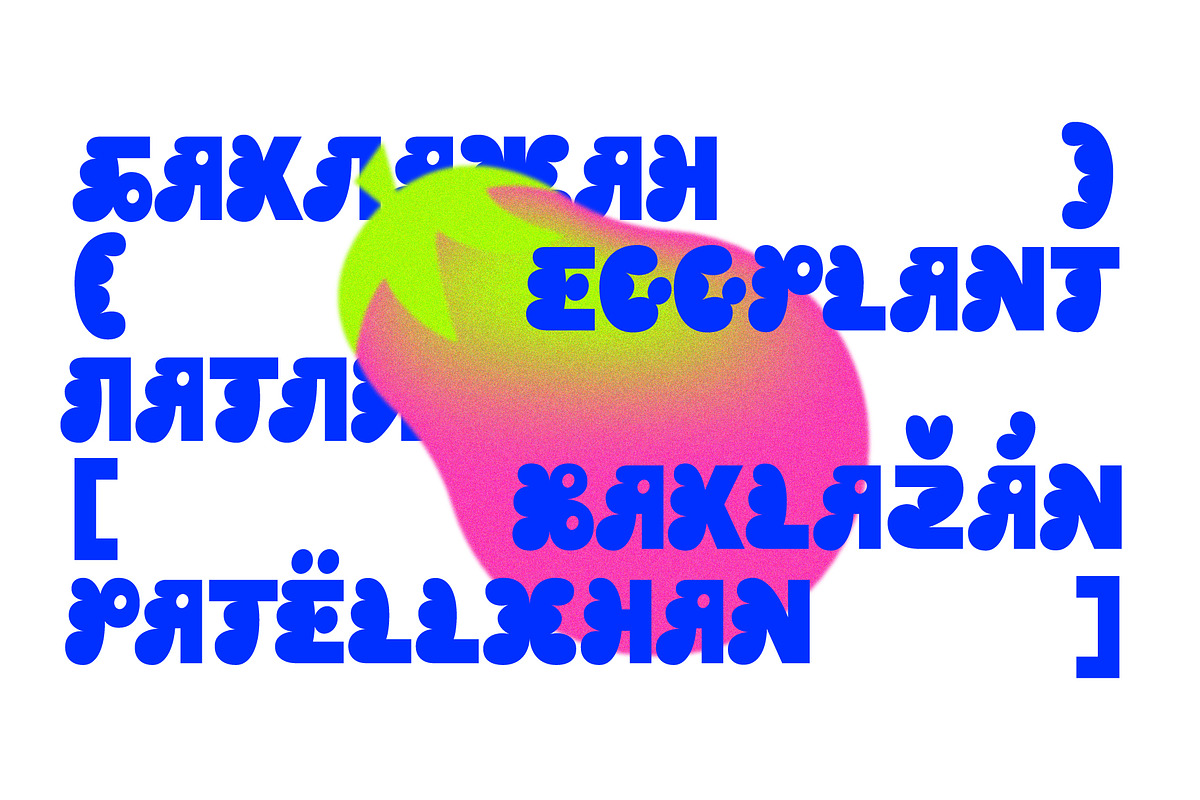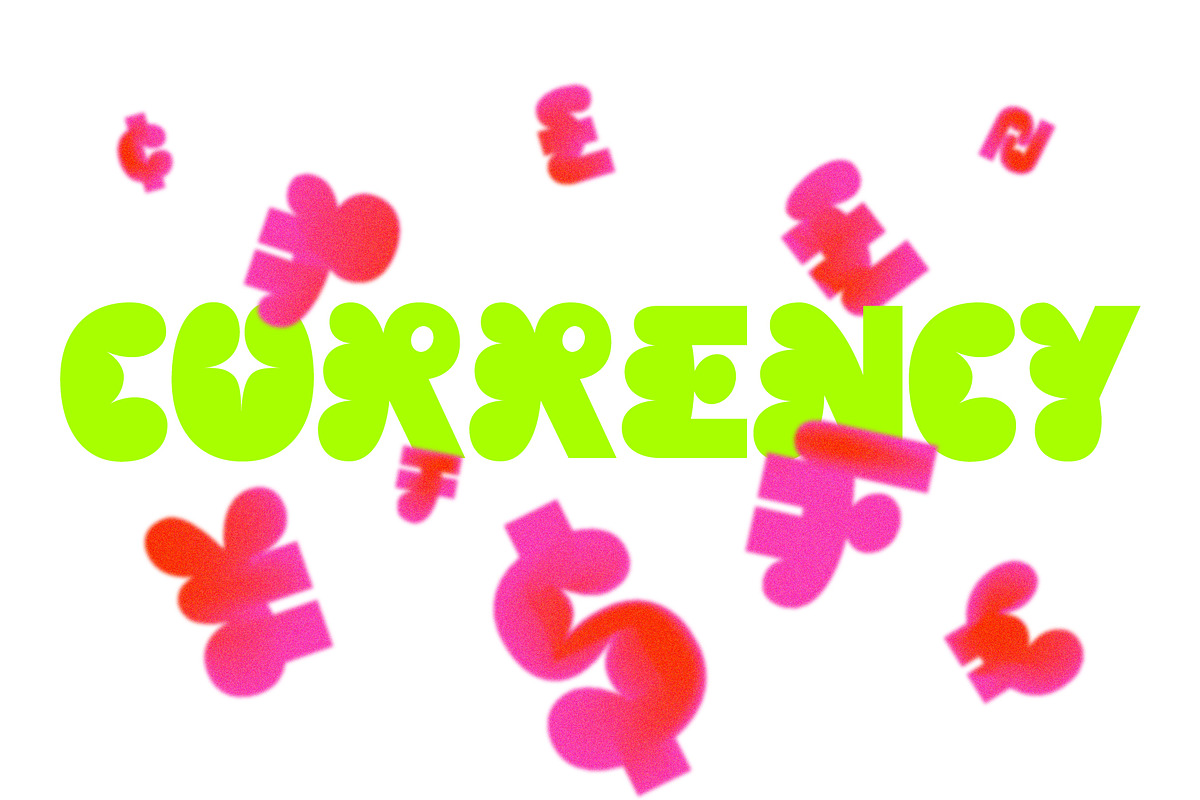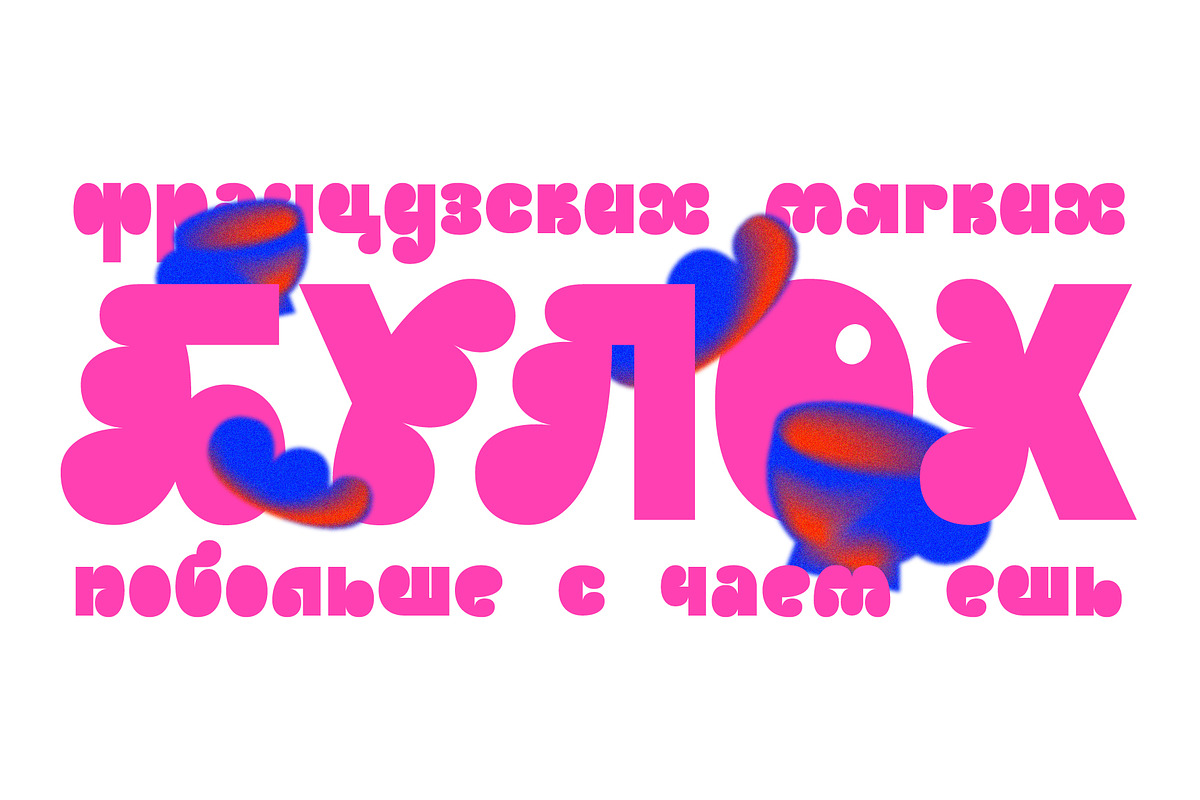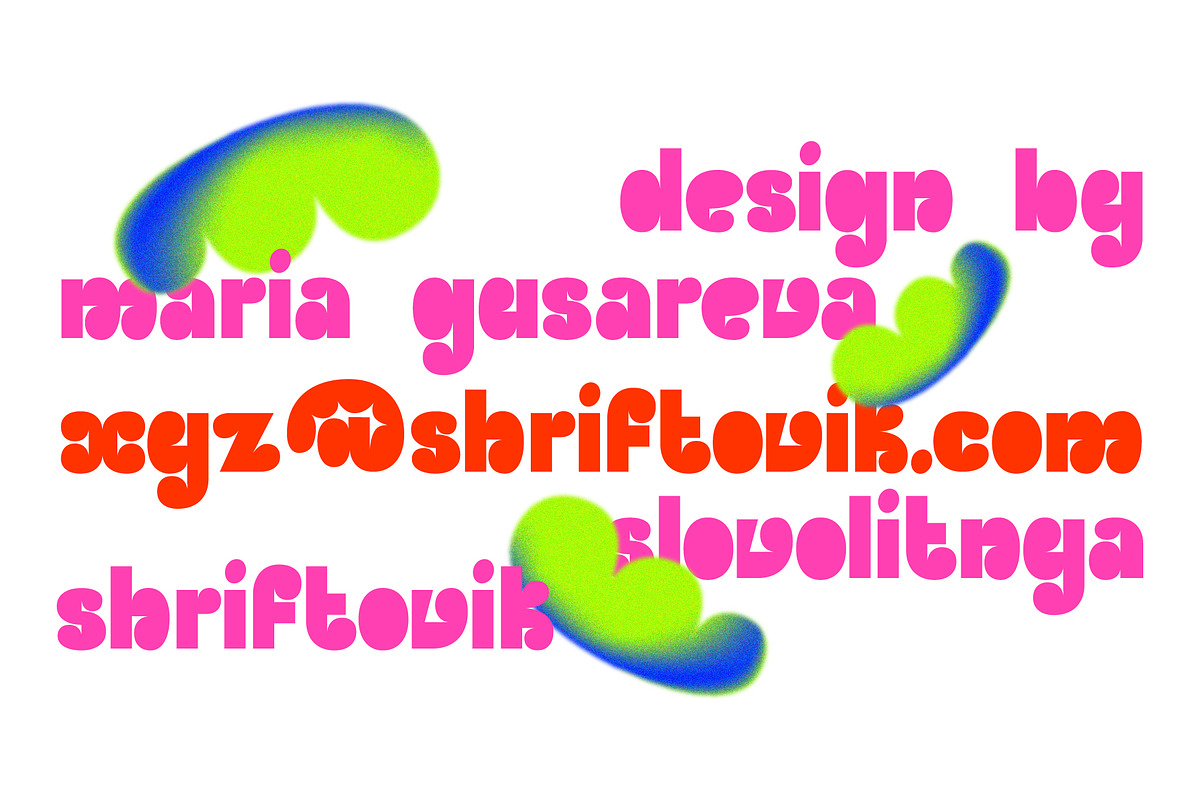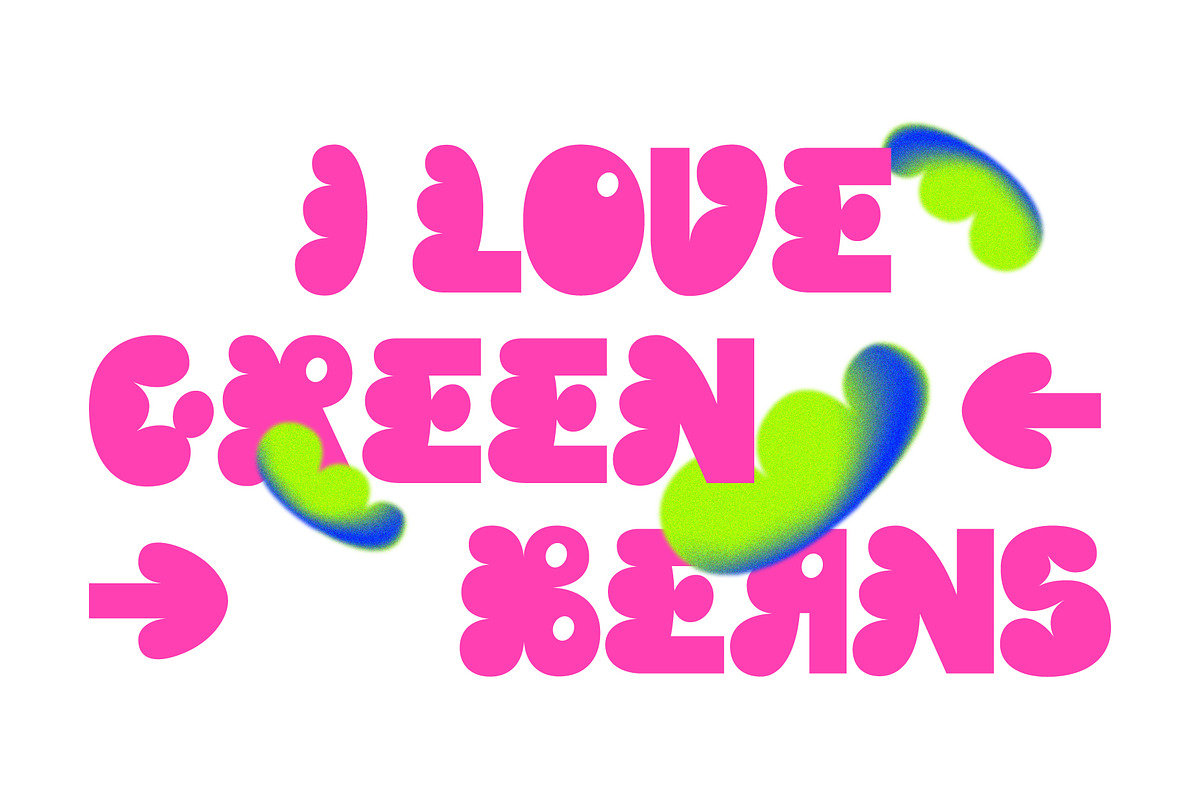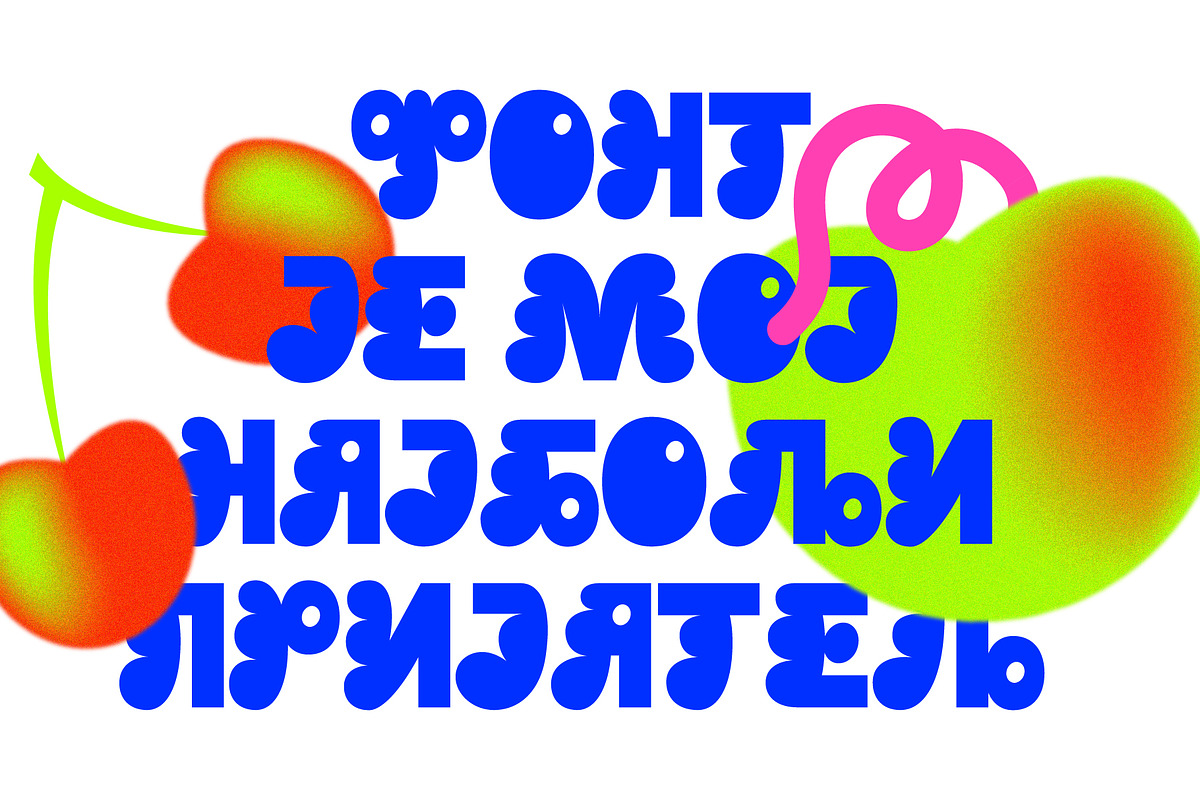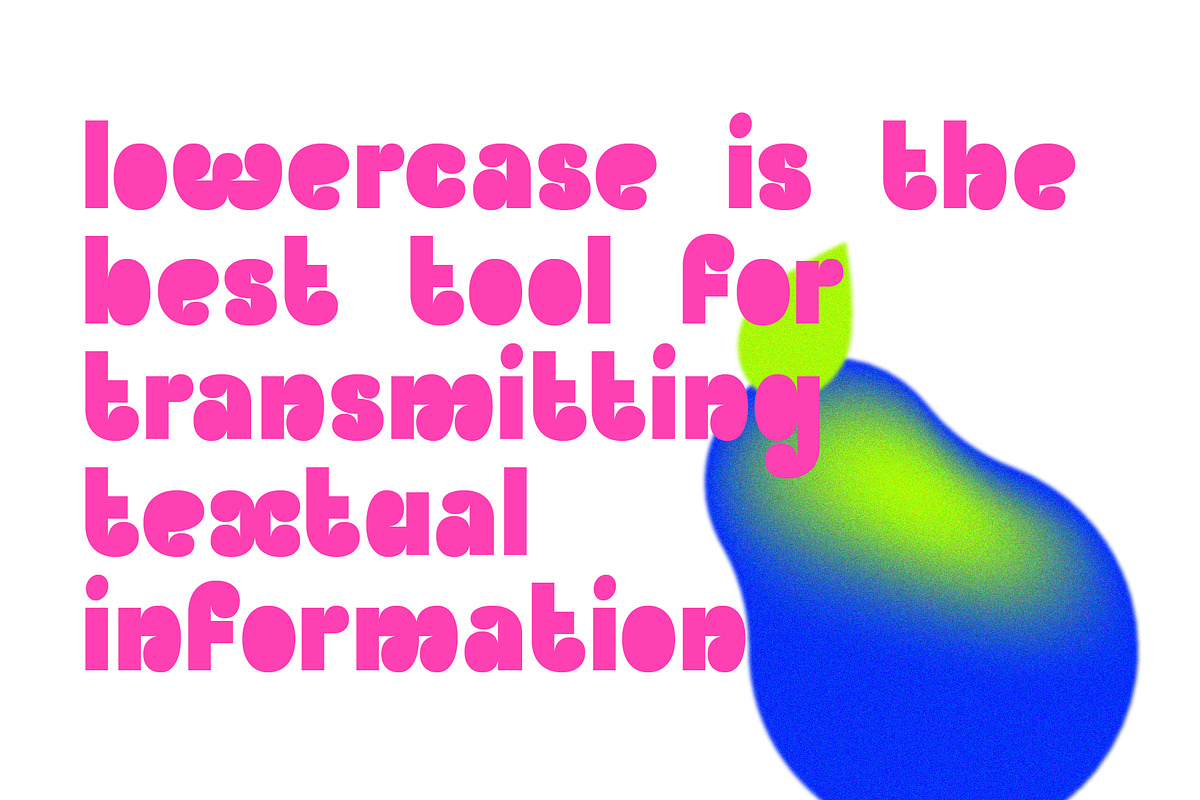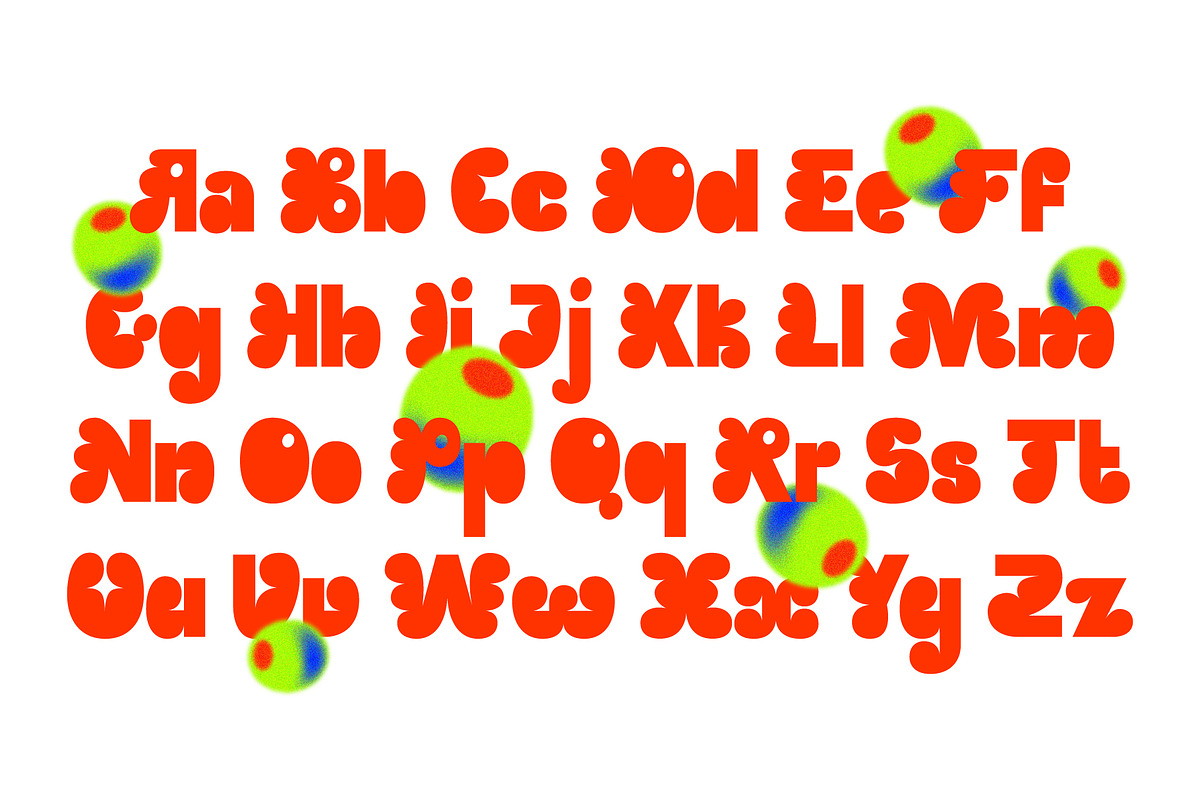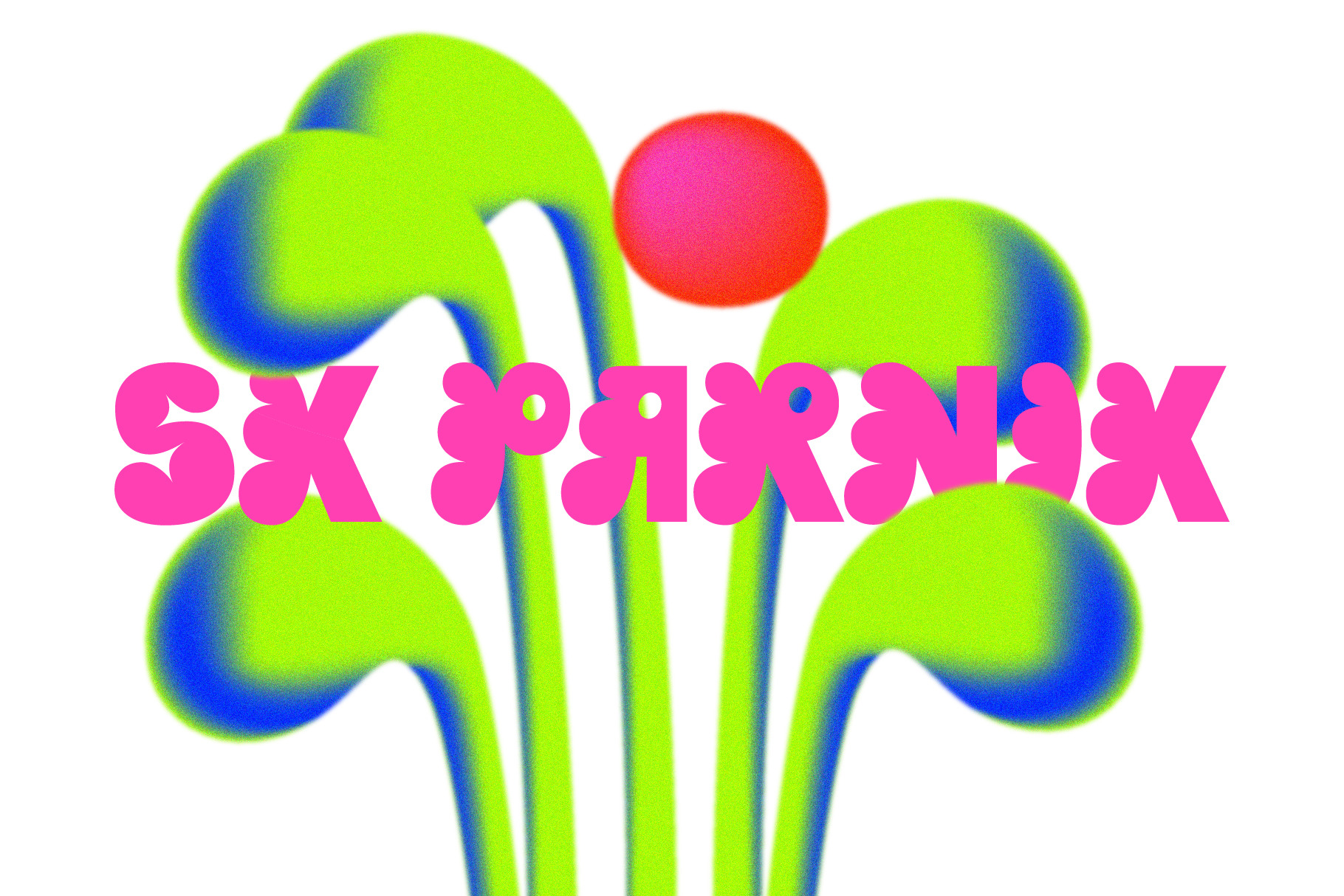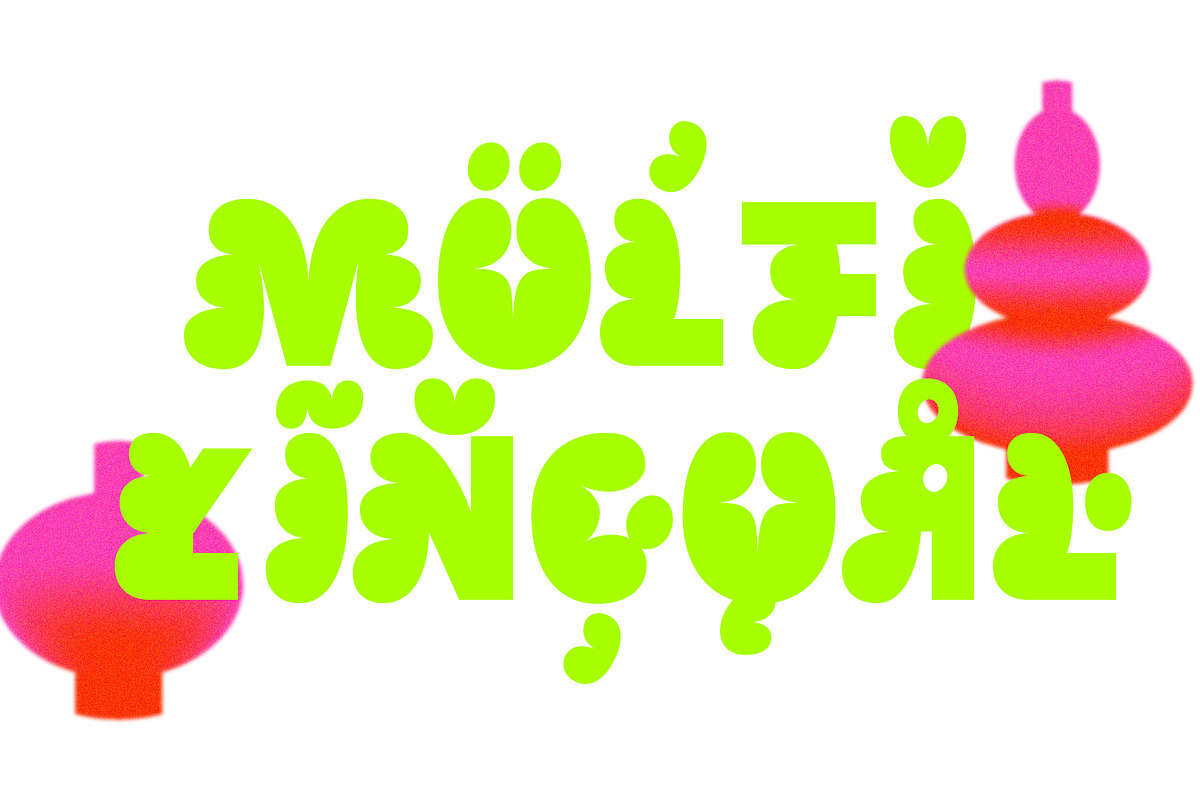
SK Parnik — Soft Playful Typeface
SK Parnik is a modern display font inspired by the culture of vegetarianism. This font is based on the shape of a bean pod, which gives the symbols a unique playful character, perfect for working with the branding of companies that are aimed at a children's audience, as well as engaged in restaurant activities. The character composition consists of uppercase and lowercase letters and supports extended Cyrillic and Latin letters. This allows you to expand the scope of this font. Despite the pronounced decorative component, thanks to its tools, the font will fit perfectly into the collection of any designer.